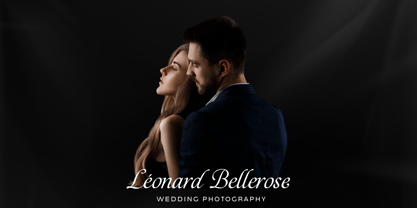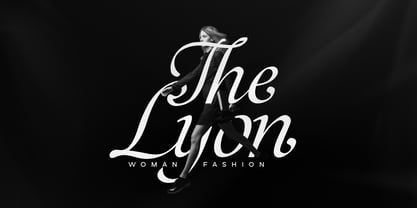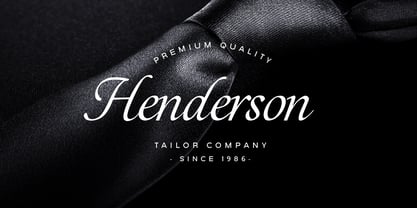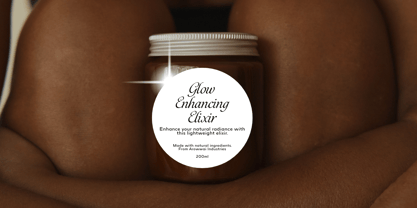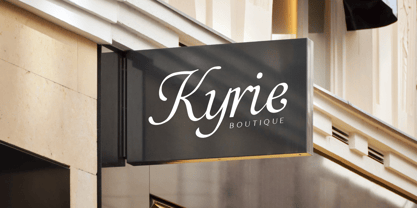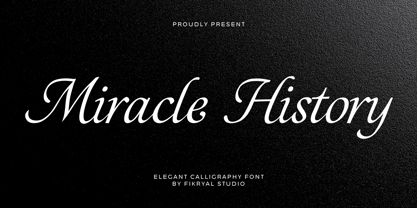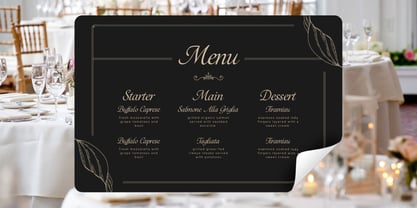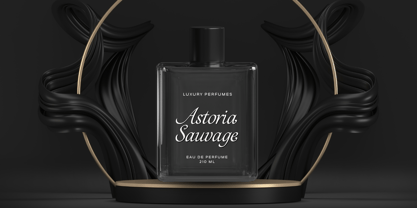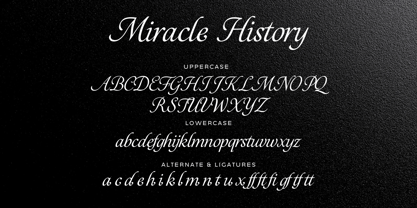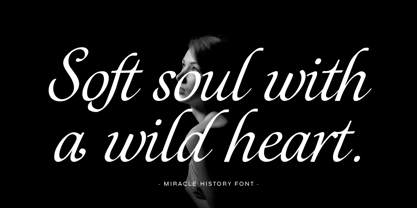
Miracle History
by Fikryal
The Miracle History Font Family was designed by Muhammad Fikry and published by Fikryal. Miracle History contains 1 styles. More about this family
Miracle History – Elegant Calligraphy Font
Introducing Miracle History, a sophisticated and graceful calligraphy font that brings timeless elegance to your creative projects. Inspired by classic hand lettering with a modern twist, this font is perfect for those who appreciate detail, beauty, and refinement in their design work.
Crafted with love and precision, Miracle History features:
• Elegant calligraphy style with smooth and flowing letterforms
• Stylish alternates to add versatility and uniqueness to your typography
• Beautiful ligatures that create natural and artistic connections between characters
Miracle History is designed to make your designs stand out and leave a lasting impression.
• Full alternates and ligatures (accessible via OpenType features)
Let your creativity shine with the elegance and charm of Miracle History. ✨